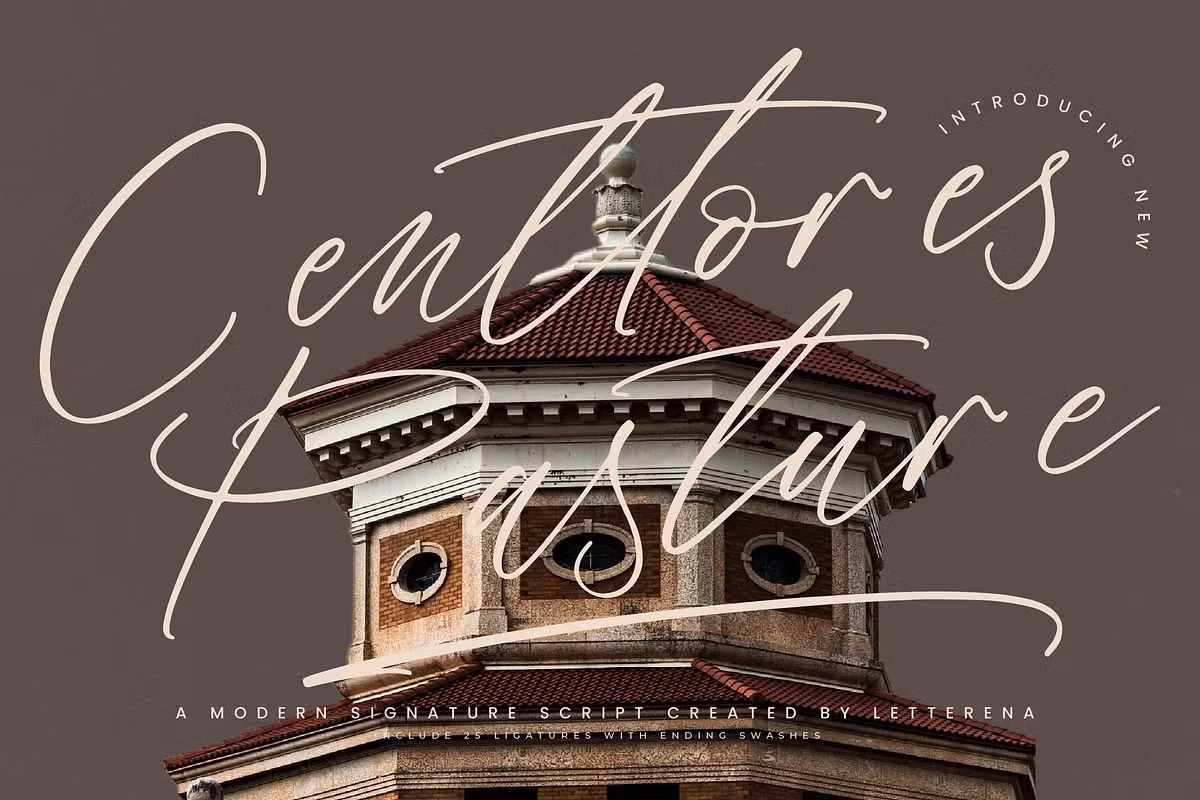
Centtores Pasture Modern Signature Font Free Download is a sleek and sophisticated handwritten script that embodies elegance, style, and a personal touch. Perfect for branding, luxury logos, wedding invitations, beauty product packaging, and fashion-related content, this font mimics the flow and finesse of a real signature.
Its graceful letterforms and smooth, natural strokes give your designs a refined and exclusive look. With included ligatures and stylistic alternates, Centtores Pasture offers customization options to make your typography feel truly unique.